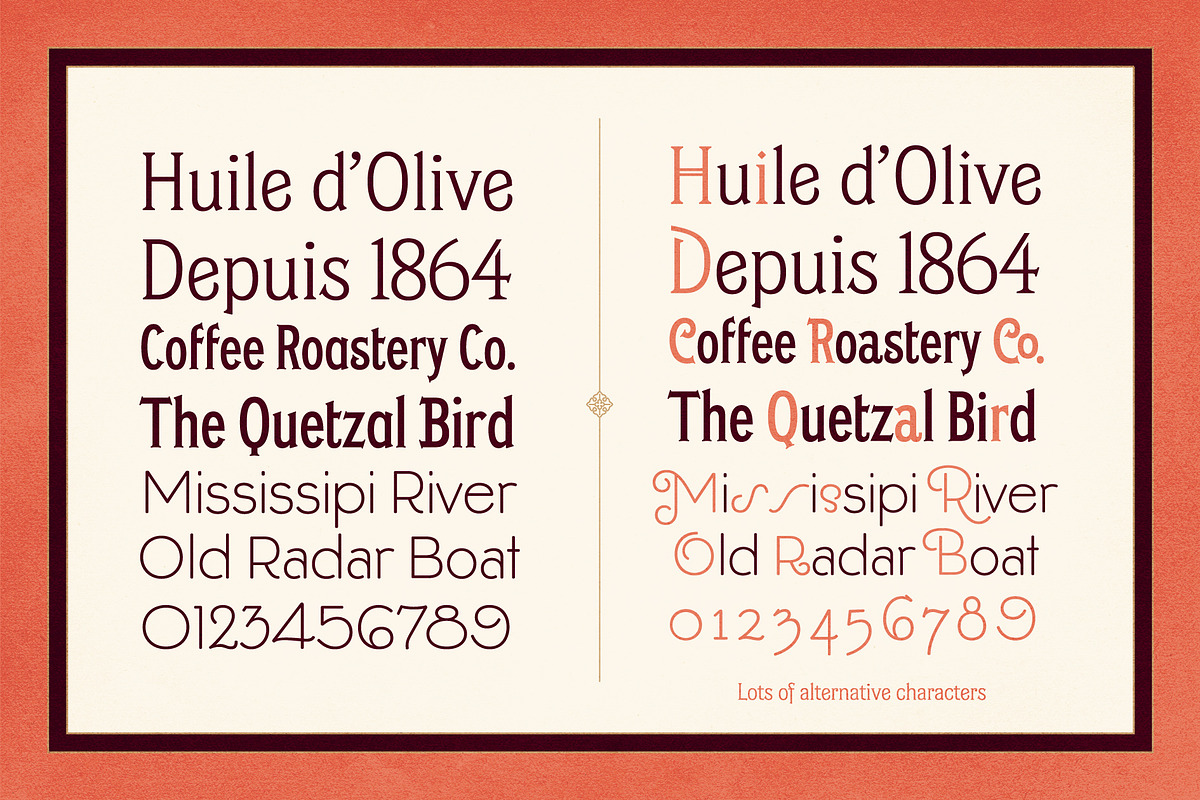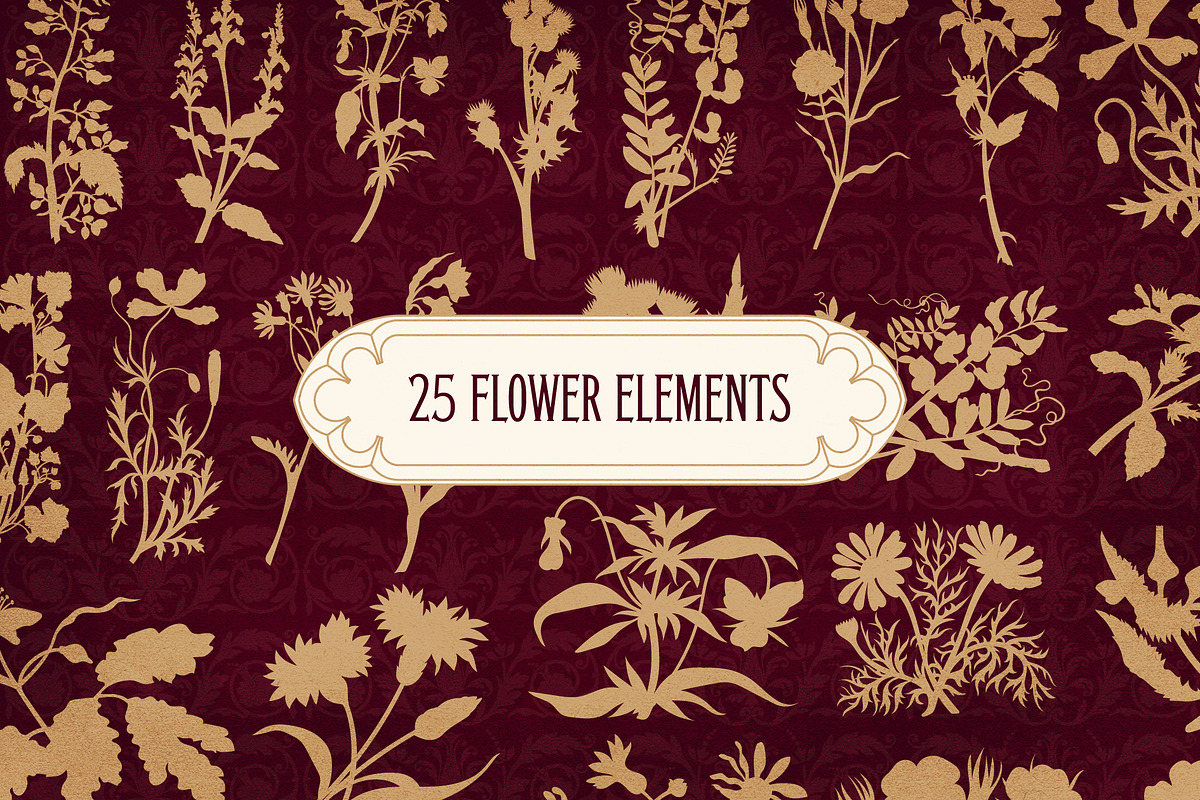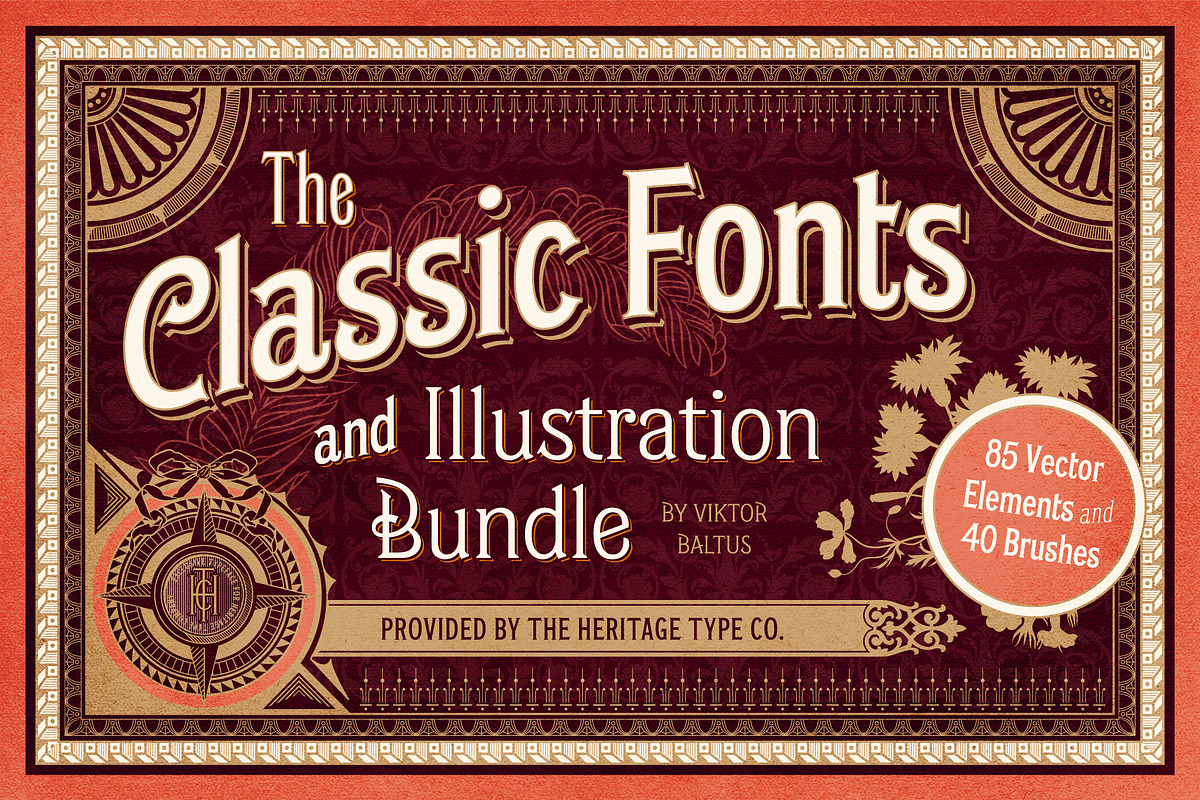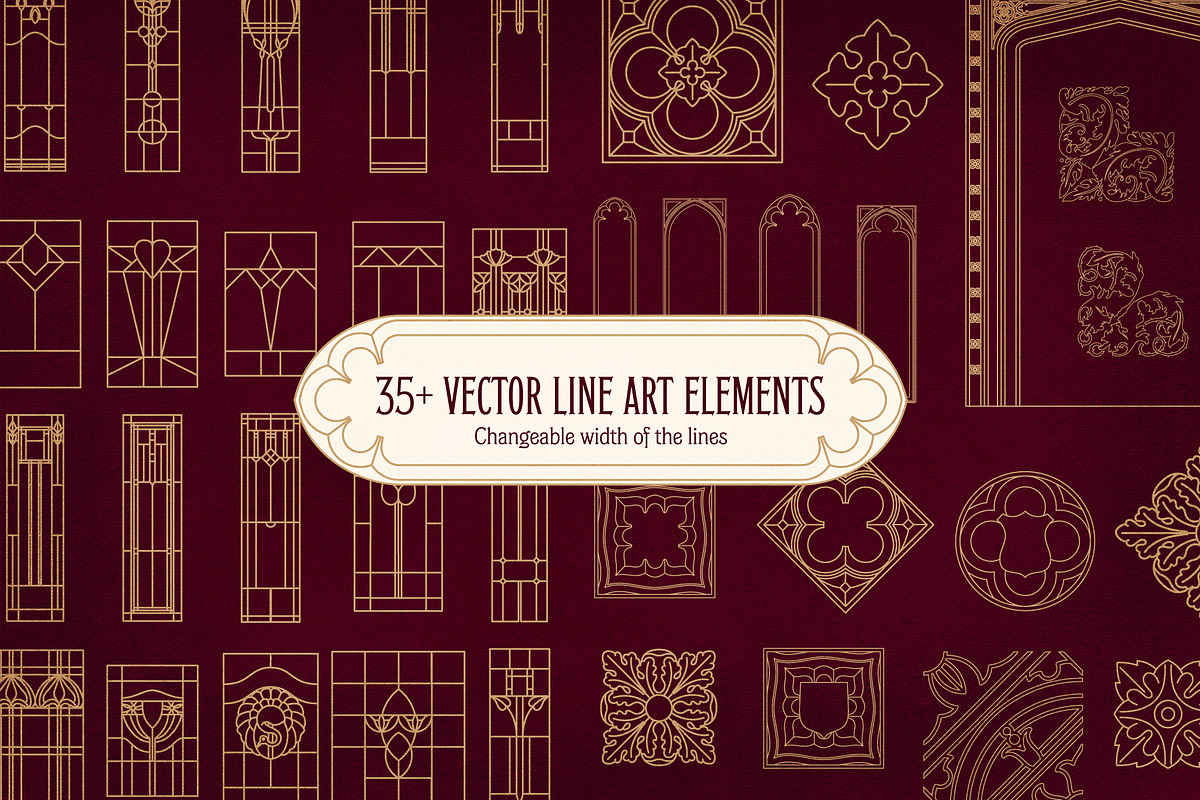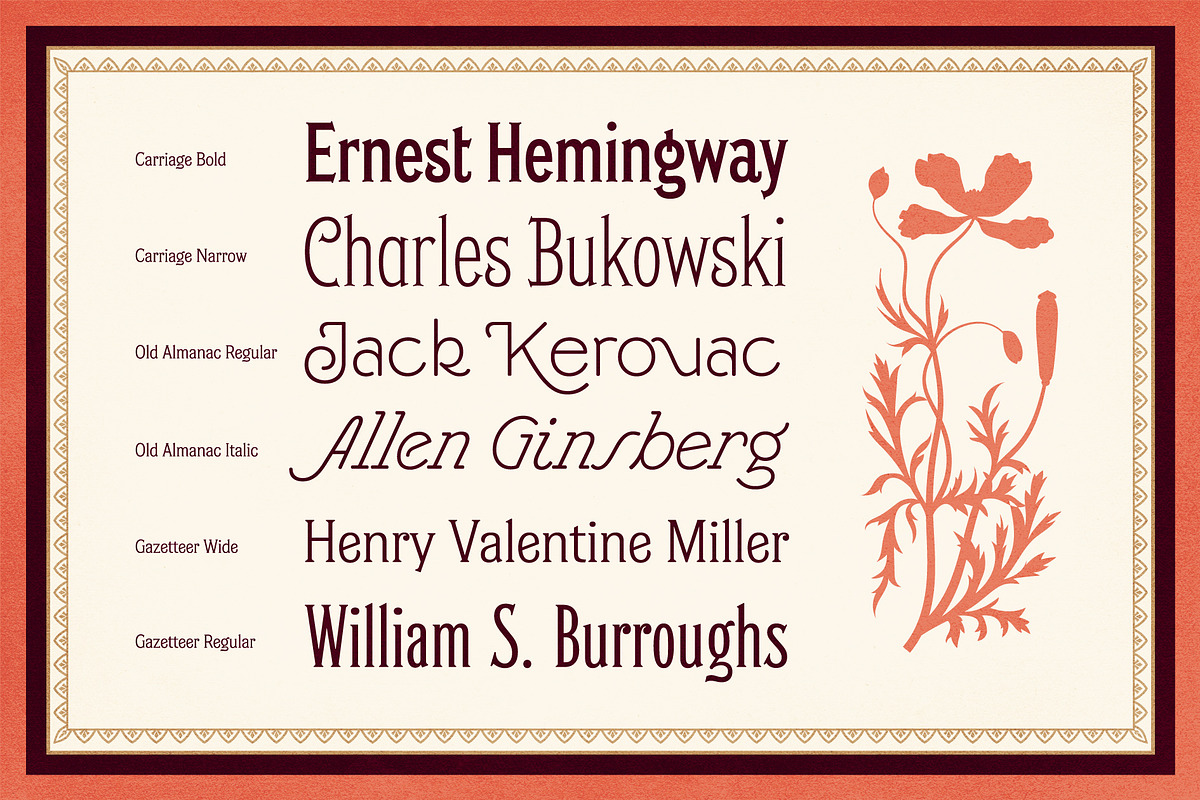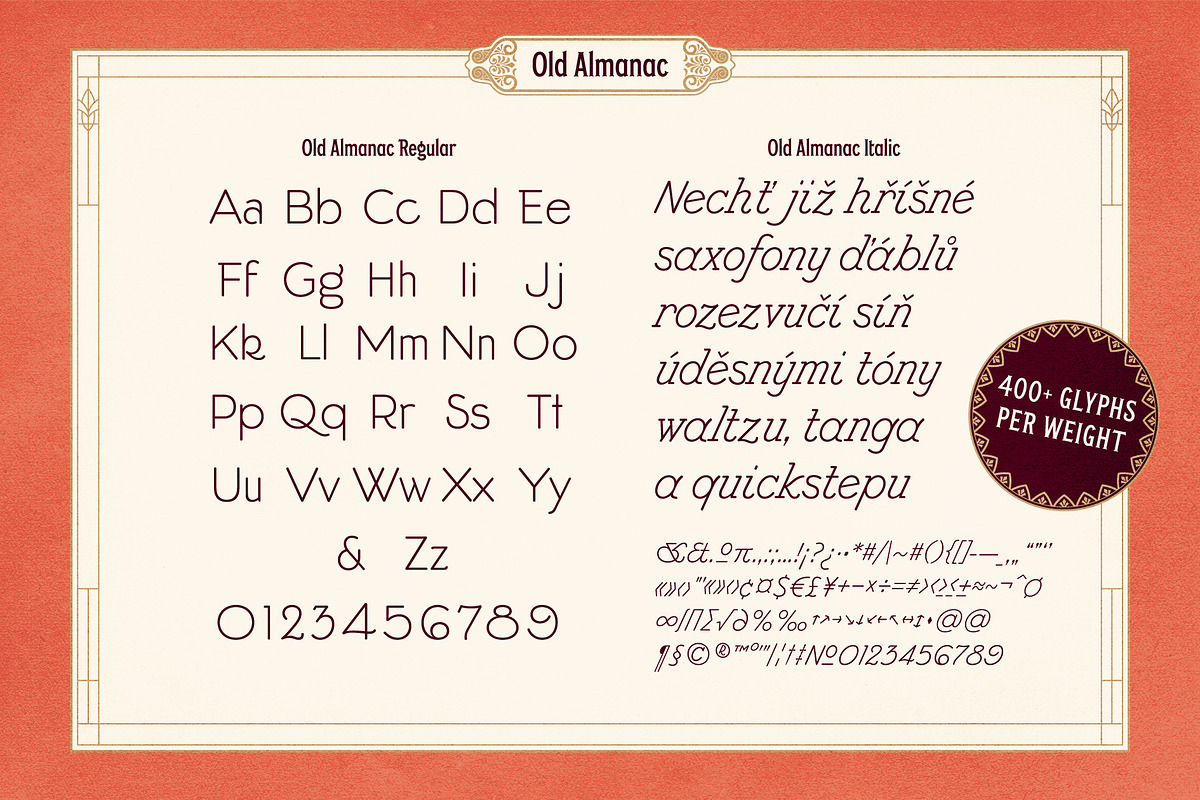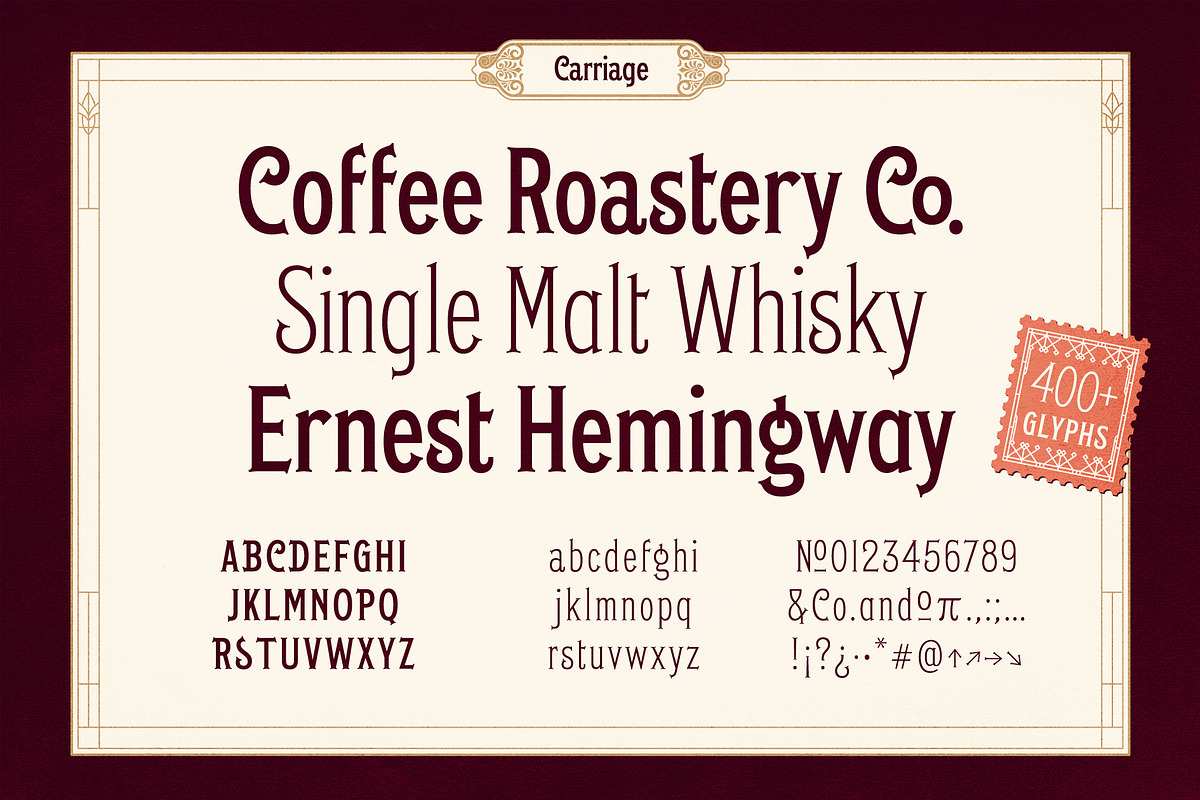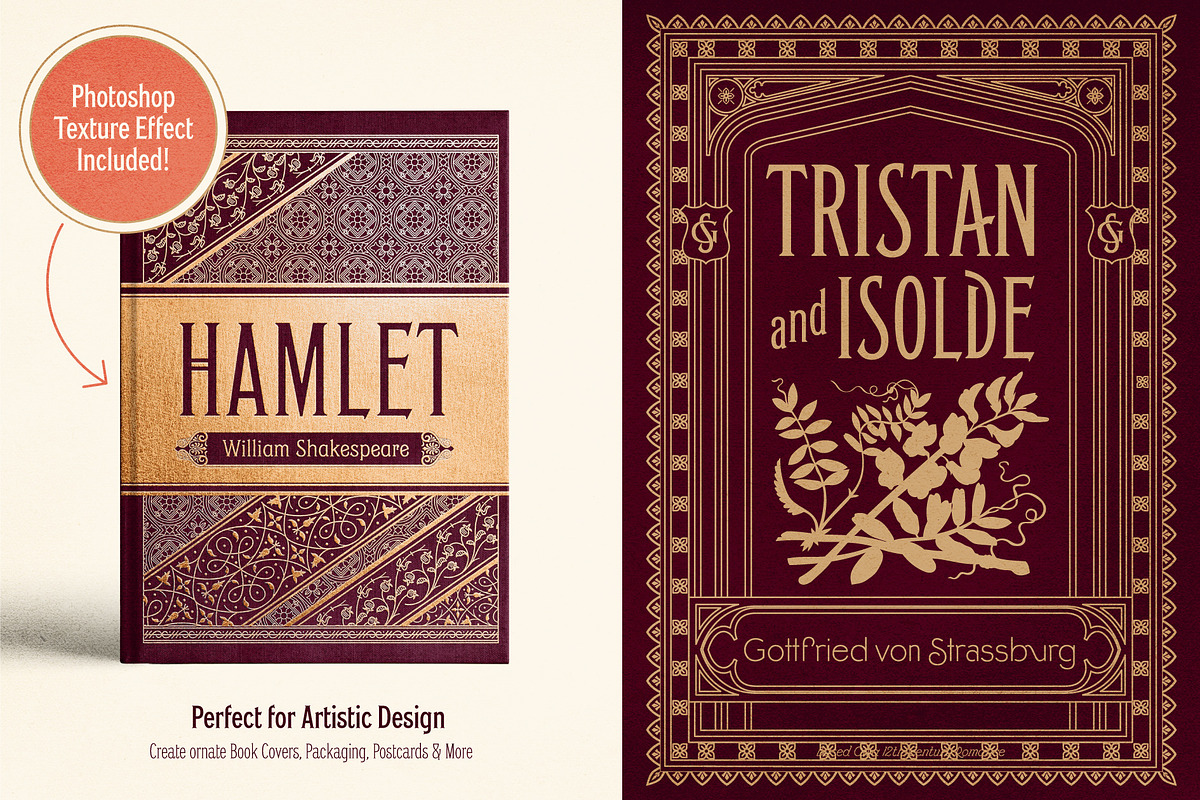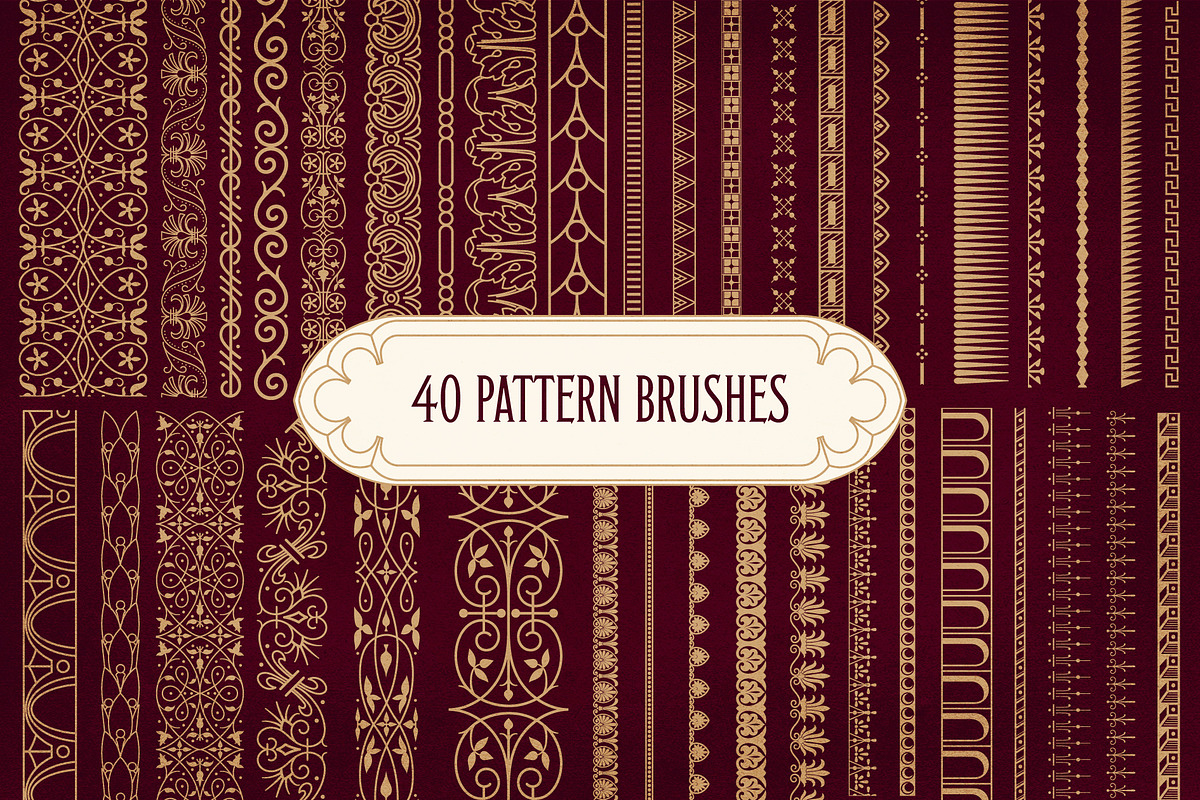
Classic Fonts & Illustration Bundle
The Classic Fonts and Illustration Bundle contains a set of 6 classic vintage fonts, designed by Dutch type designer Viktor Baltus. All fonts are Latin extended and usable in more than 50 languages. The bundle includes 25 vector ornaments, 25 flower silhouette illustrations, 40 beautiful pattern brushes, and an extra of +35 line art drawings inspired by stained glass windows. The combination makes this bundle perfect for designing vintage book covers, traditional packaging, and much more.
- Alternate Characters and Ligatures